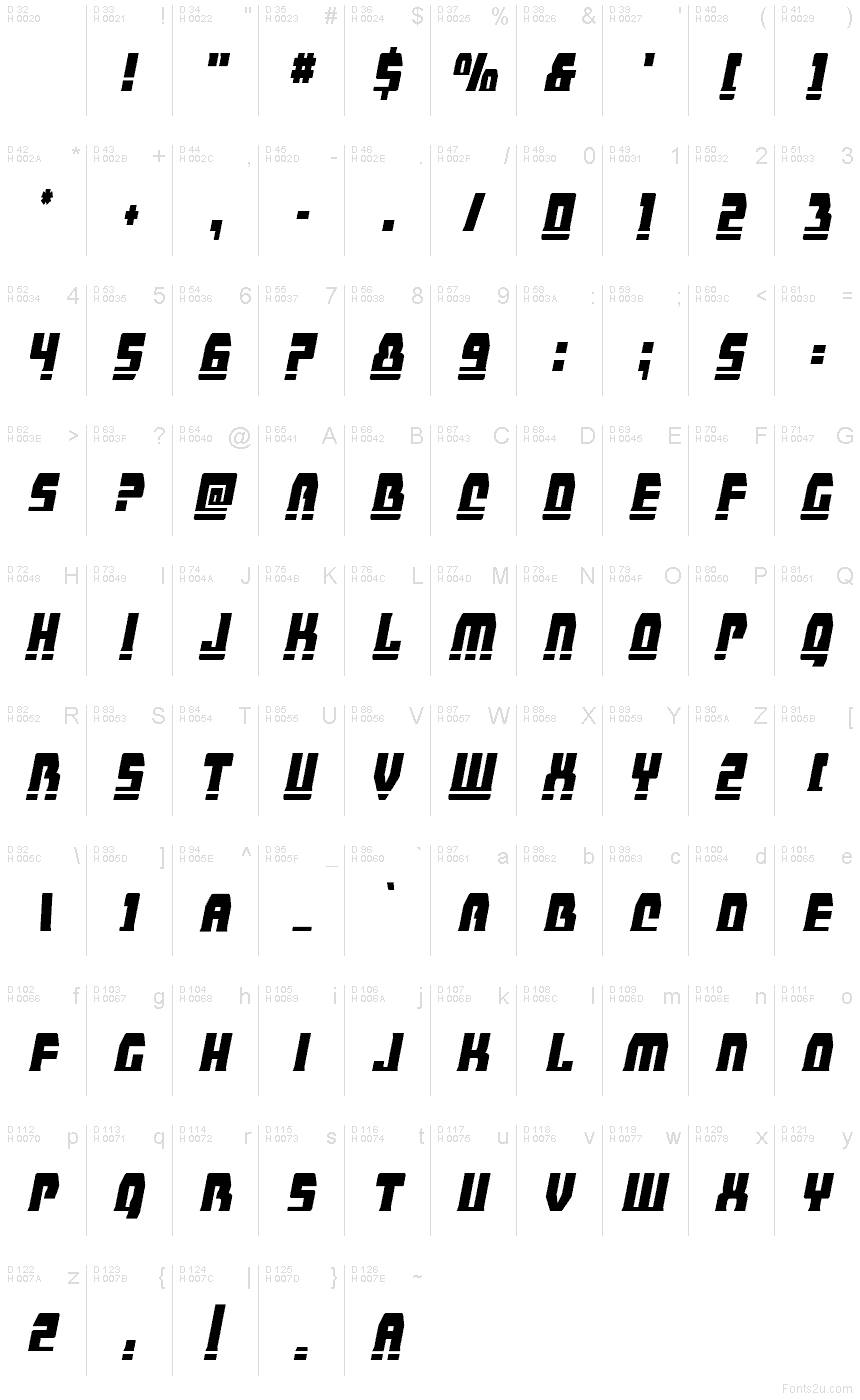
Librator Bar Condensed Italic
Librator Bar Condensed Italic font by Iconian Fonts is a bold, techno display font with clean lines and geometric shapes. Its slight forward slant and uniform thickness contribute to its modern aesthetic, giving it a striking appearance. The condensed style ensures a unique and efficient use of space in any design.